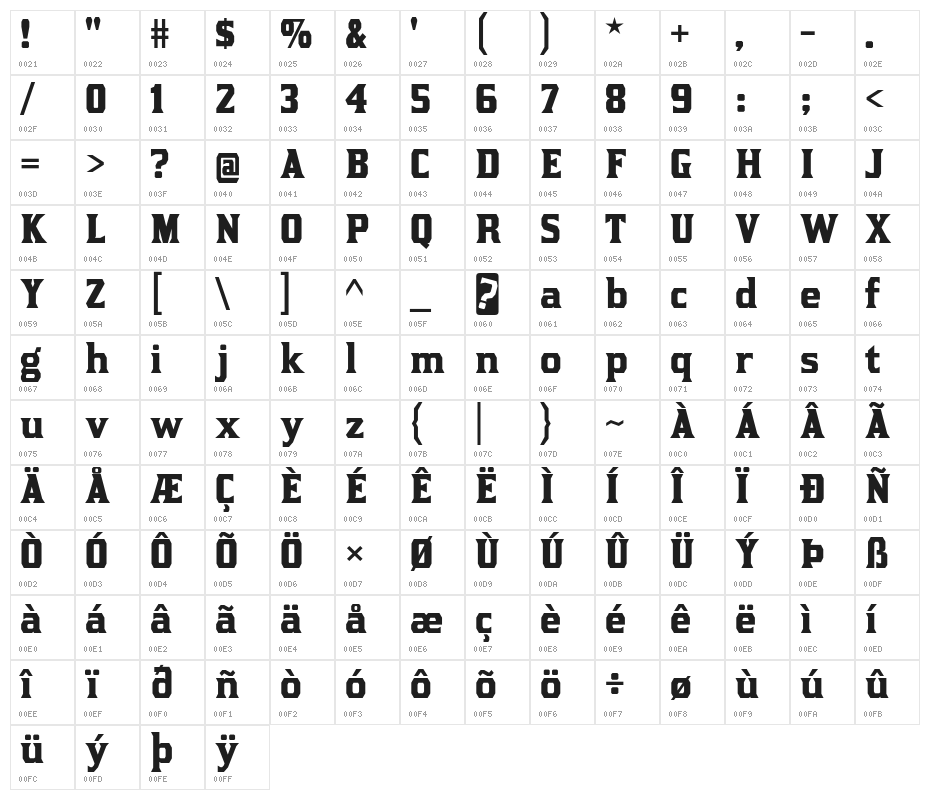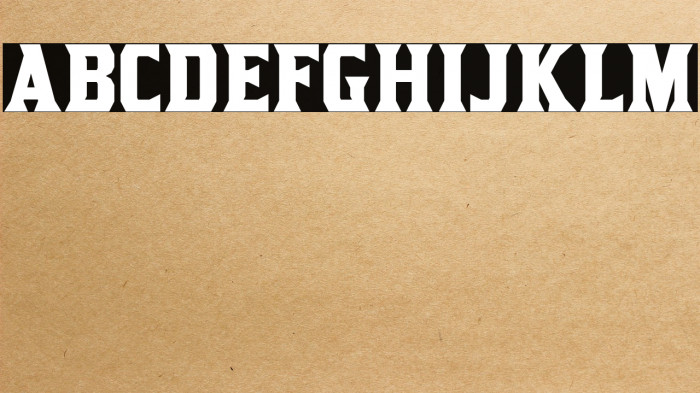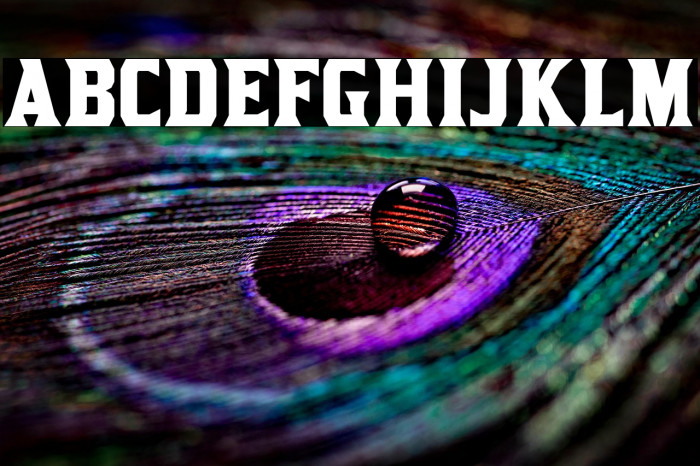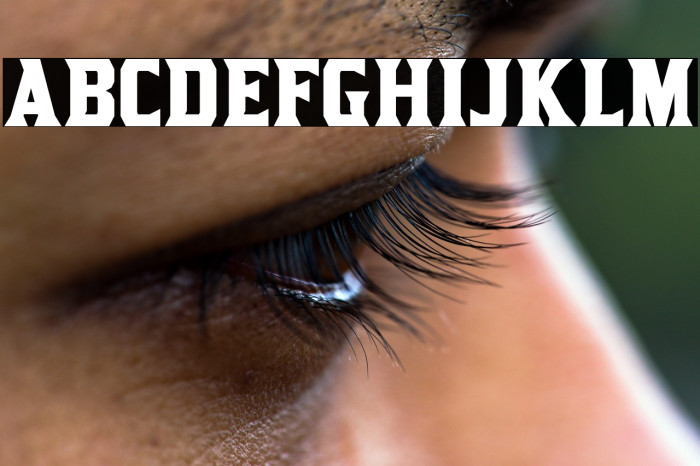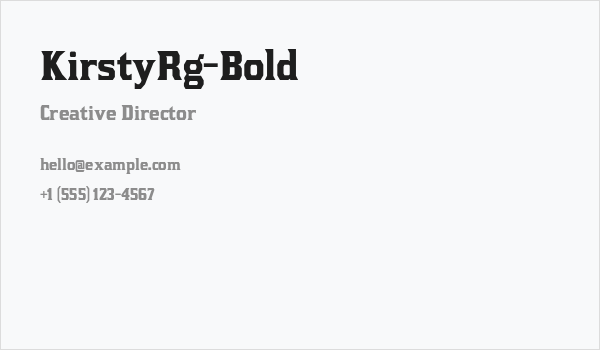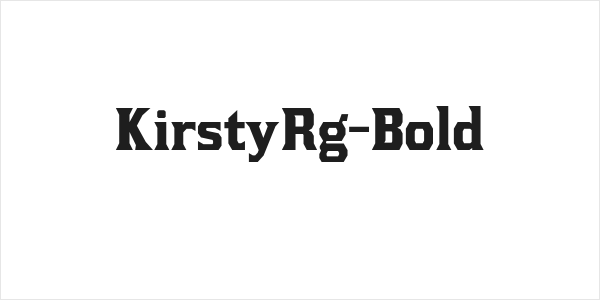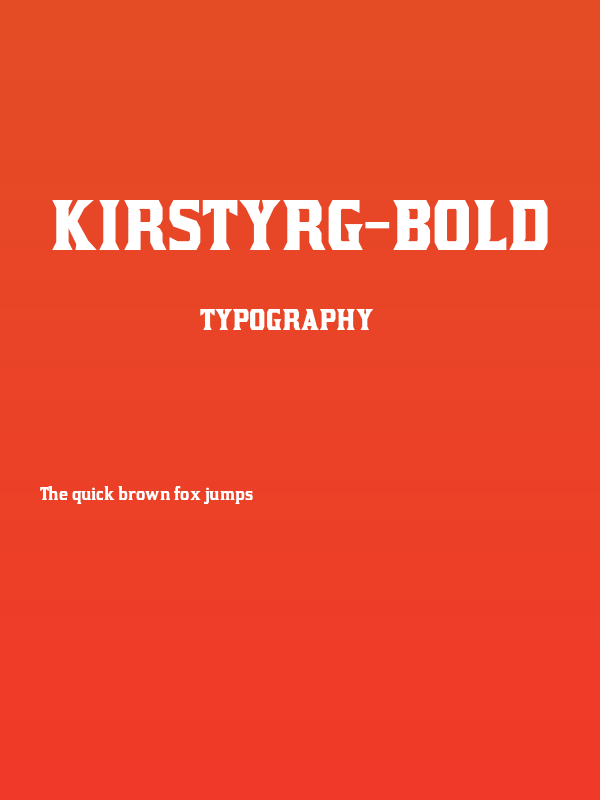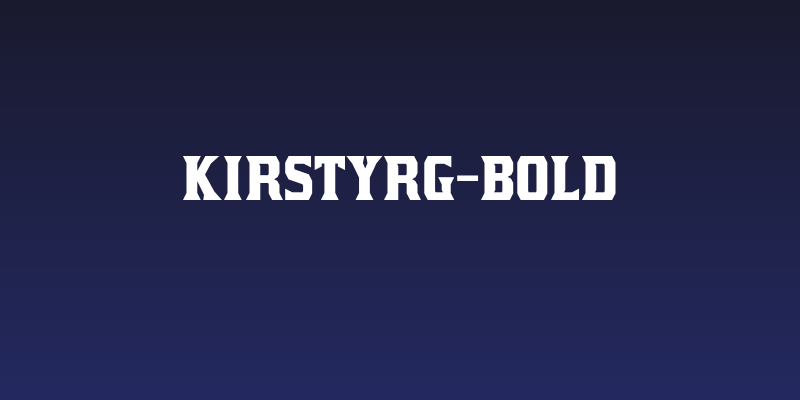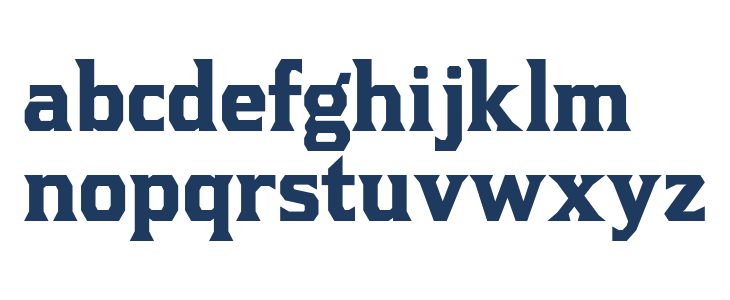
KirstyRg-Bold Font
KirstyRg-Bold Description
This font features a bold and striking design with a strong presence, characterized by its thick, angular strokes and sharp edges. The uppercase letters are particularly prominent, with a geometric style that conveys a sense of strength and authority. The lowercase letters maintain a consistent weight, ensuring readability while preserving the font's bold aesthetic. Numbers and special characters are equally robust, making them suitable for impactful displays. The overall design is reminiscent of vintage or retro styles, yet it maintains a modern appeal through its clean lines and structured form.
| Proposed Projects | This font is perfect for projects that require a strong visual impact, such as posters, headlines, branding, and logos. Its bold nature makes it suitable for sports team logos, event promotions, and any design that aims to capture attention. |